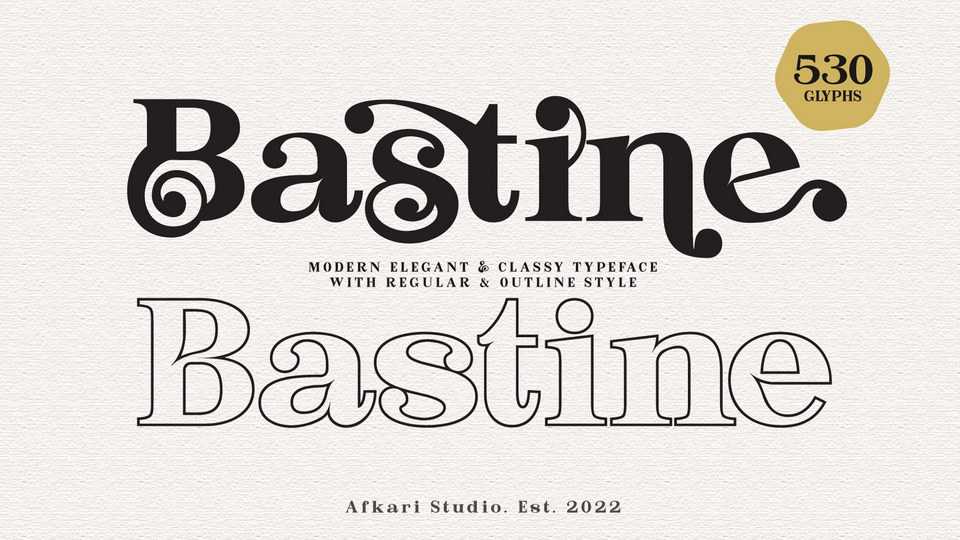
Download Bastine font, a modern and classy serif typeface. Bastine is perfect for branding projects, clothing, logo design, product packaging, wedding invitations, magazine headers, or simply as a stylish text overlay to any creative design you create.
Designer: Afkari Studio